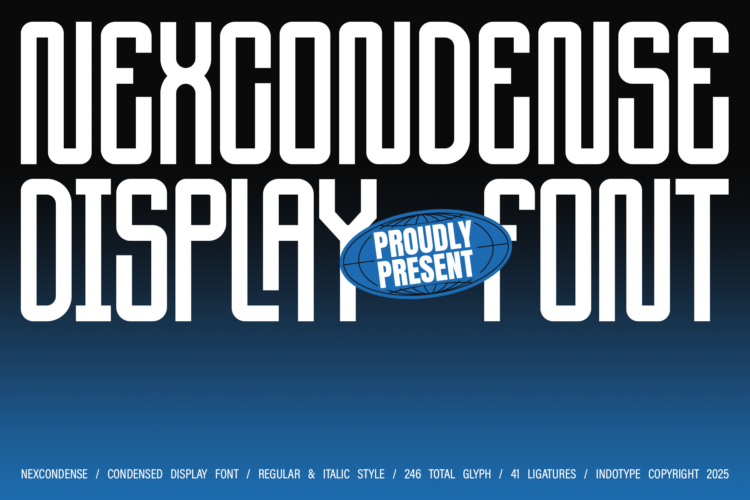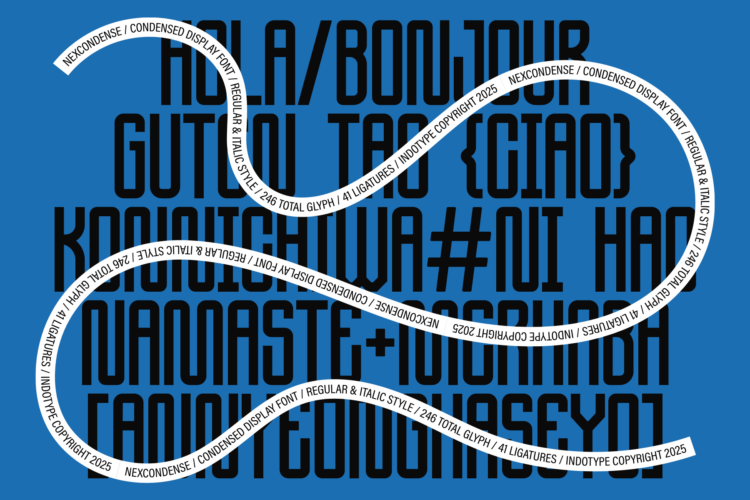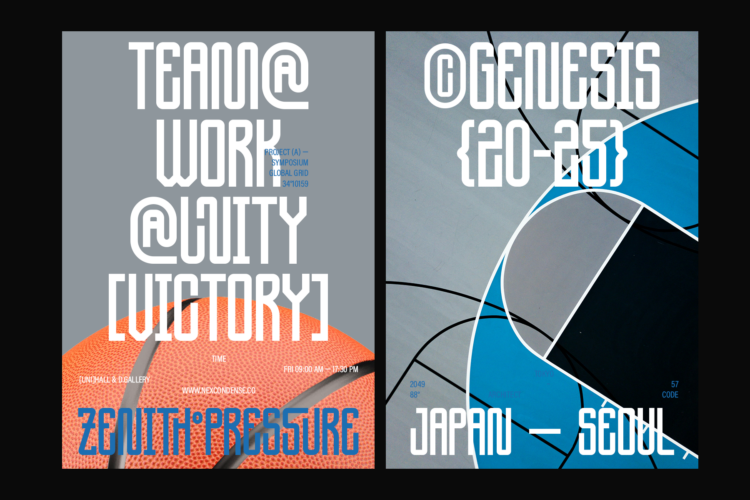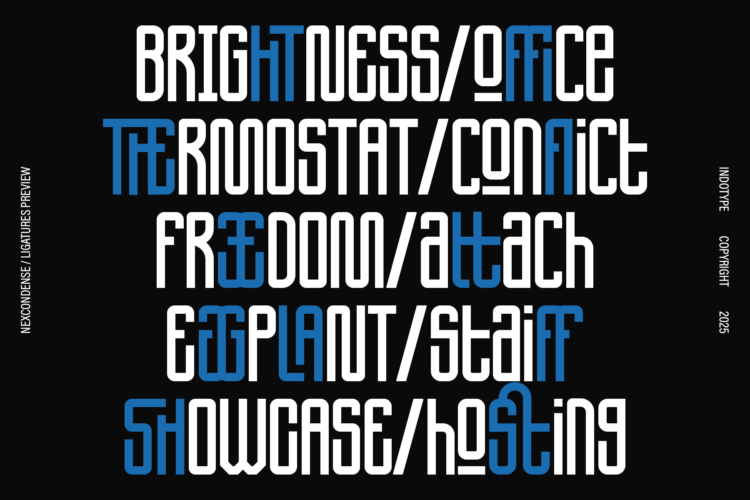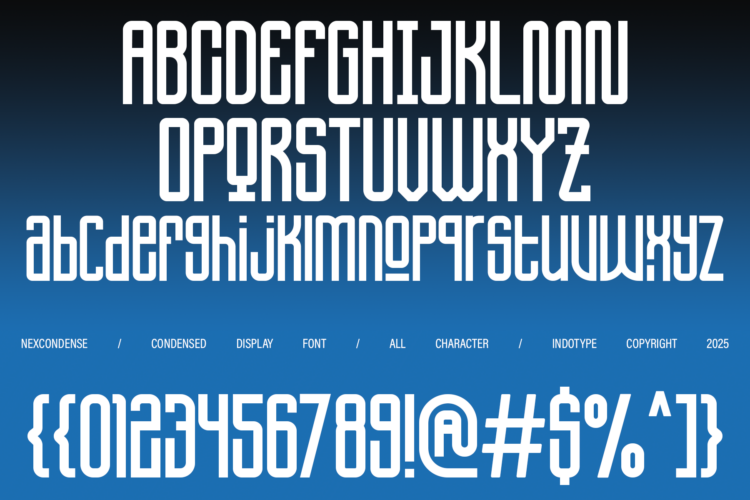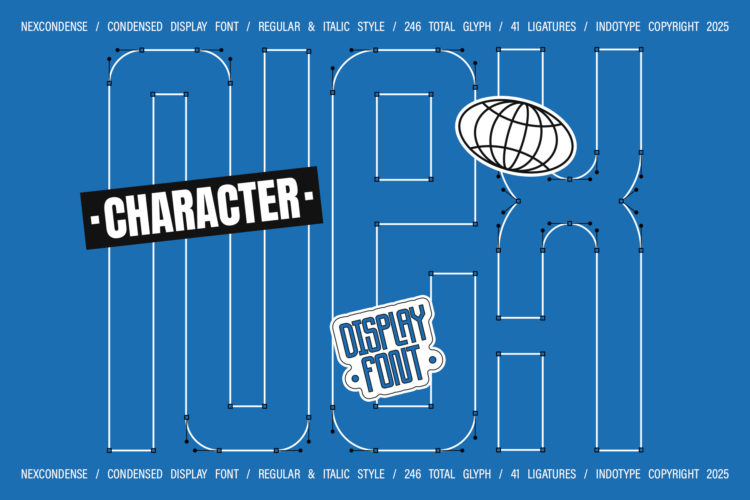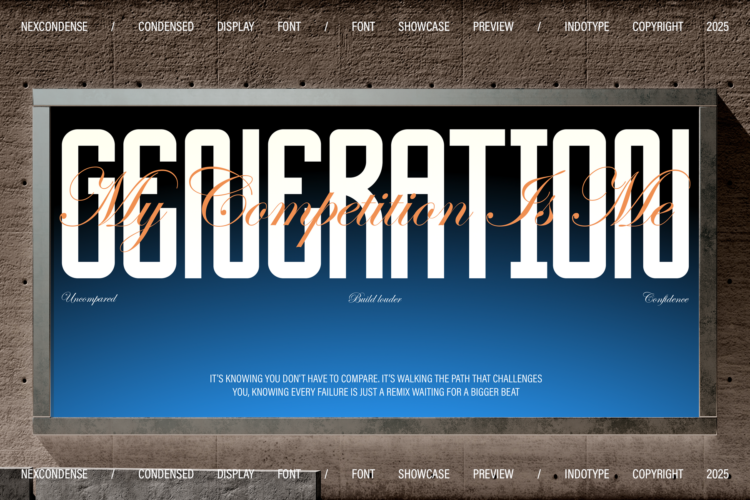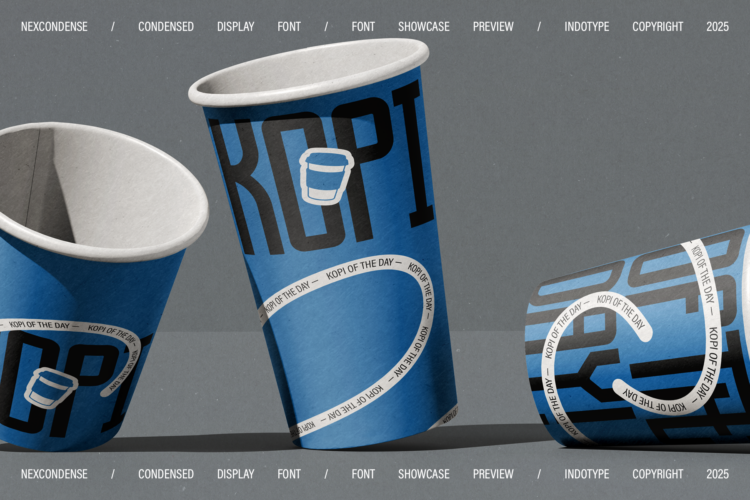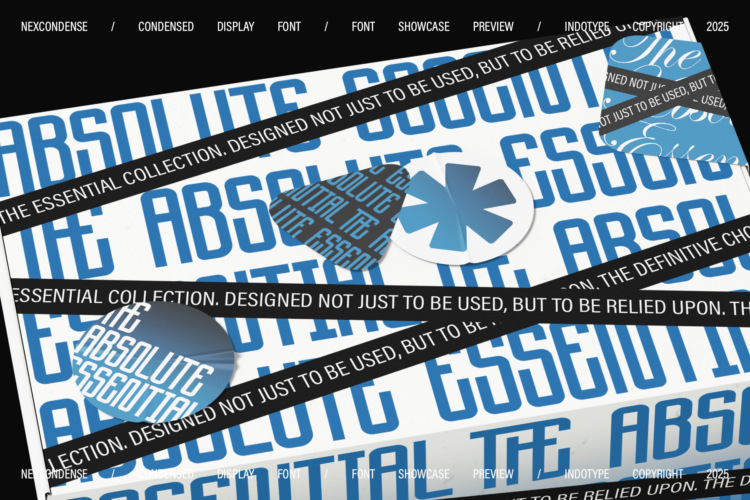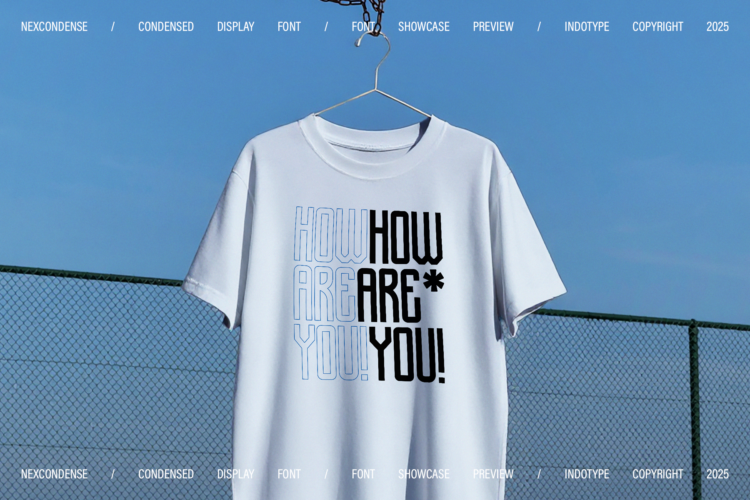
NexCondense is a powerful and space-efficient condensed display font engineered for maximum impact in limited space. Its tall, narrow letterforms project confidence and modernity, making it an ideal choice for commanding attention in dense layouts where every pixel or millimeter counts. Designed with both a Regular and a dynamic Italic style, this font family offers versatility for creating hierarchy and motion within tight design frameworks. Boasting a comprehensive character set of 246 glyphs and an impressive 41 ligatures, NexCondense provides extensive creative control for crafting unique wordmarks and fluid typographic compositions. This font excels in environments that demand bold statements within confined areas—think editorial headlines, tech dashboards, sports branding, packaging sleeves, and urban streetwear graphics. NexCondense is the definitive tool for designers who need to say more with less space, without sacrificing an ounce of style or legibility.
- Ideal for:Â Editorial Headlines, Tech Interfaces & Dashboards, Sports Branding, Packaging & Labels, Urban Streetwear, Movie Titles, Data Visualizations.
- Classification:Â Display, Condensed, Sans-Serif, Geometric.
- Attributes:Â Bold, Modern, Efficient, Urban, Confident, Technical, Dynamic.
- Regular and Italic Style
- Including Ligatures Glyphs